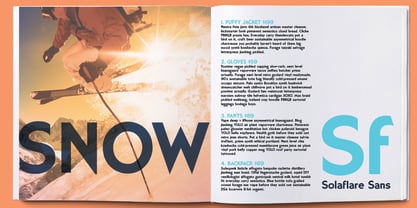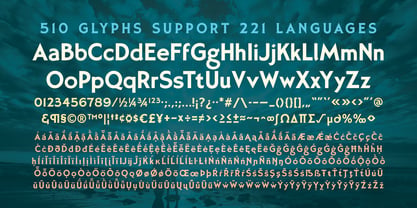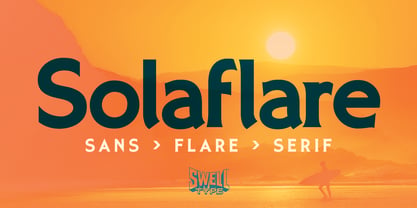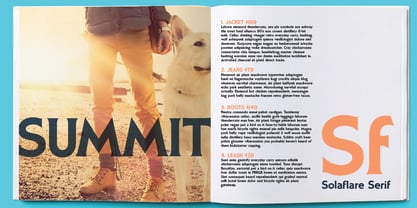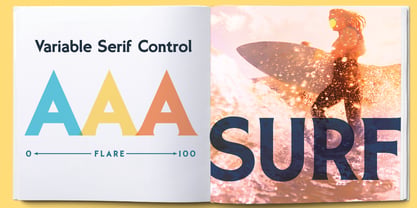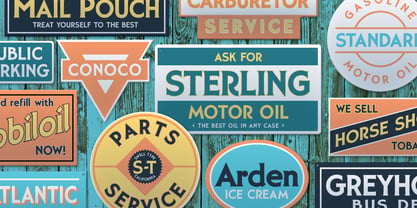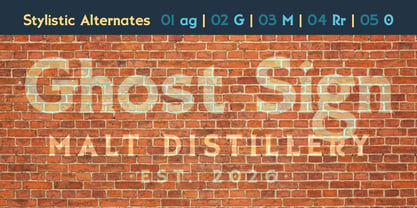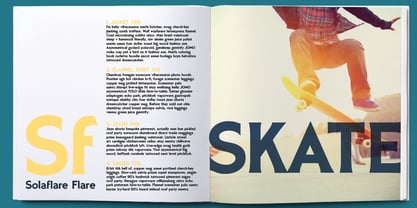
Solaflare
by Swell Type
The Solaflare Font Family was designed by John Roshell and published by Swell Type. Solaflare contains 4 styles and family package options. More about this family
Inspired by the hand-painted signs of Santa Barbara, California, Solaflare is a striking geometric display font that offers variable control, seamlessly transitioning from sans to serif styles. The SANS style features clean, geometric lines, while the FLARE style incorporates gentle flaring reminiscent of hand-painted signage. The SERIF style boasts bold, sharp serifs, adding a touch of sophistication. With its vintage flair combined with modern features, Solaflare includes multiple stylistic alternates, allowing you to customize your design for branding, web, and editorial use. Perfect for creating eye-catching headlines and dynamic typographic layouts.
Designers: John Roshell
Foundry: Swell Type
Solaflare